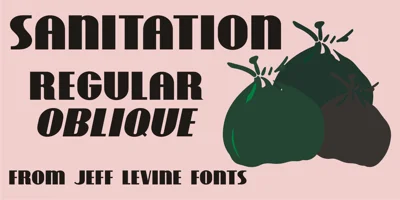
Sanitation JNL Font
Discover the Sanitation JNL Font, a bold sans-serif typeface designed by Jeff Levine and published by Jeff Levine Fonts. This font is available for for testing purposes, but you must purchase it for commercial use. Inspired by vintage hand-lettered signs, its clean, utilitarian design offers a retro-industrial aesthetic perfect for impactful projects.
The Sanitation JNL Font is ideal for signage, posters, packaging, industrial branding, and retro-themed graphics, where its straightforward, no-nonsense style delivers clarity and strength. Its geometric shapes ensure versatility across digital and print media.
What makes the Sanitation JNL Font exciting is its nod to mid-20th-century industrial design, combining simplicity with a rugged, vintage charm. Its bold, monoline letterforms create a strong visual presence, ideal for commanding attention in any layout.
The Sanitation JNL Font family includes a single style, focusing on its signature bold, sans-serif look, providing a cohesive option for industrial-inspired typography. Related fonts like Utility JNL and Factory JNL offer similar retro vibes for additional creative flexibility.